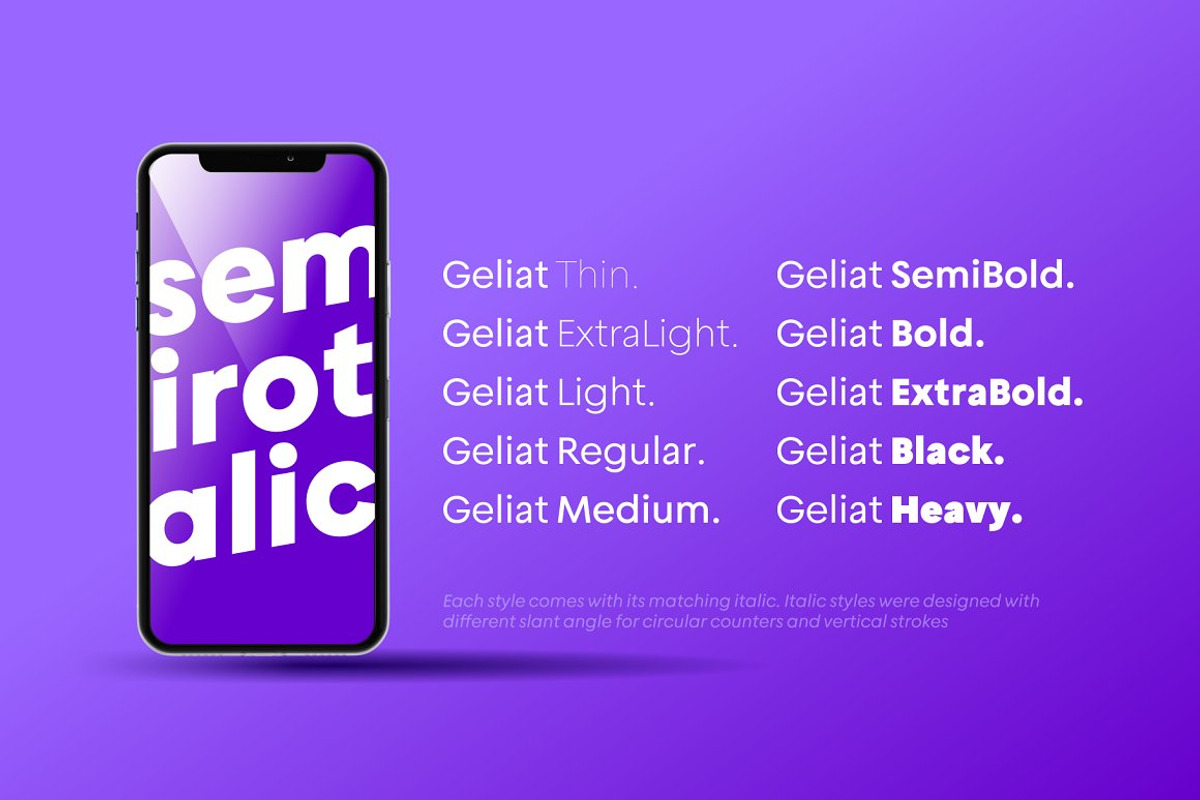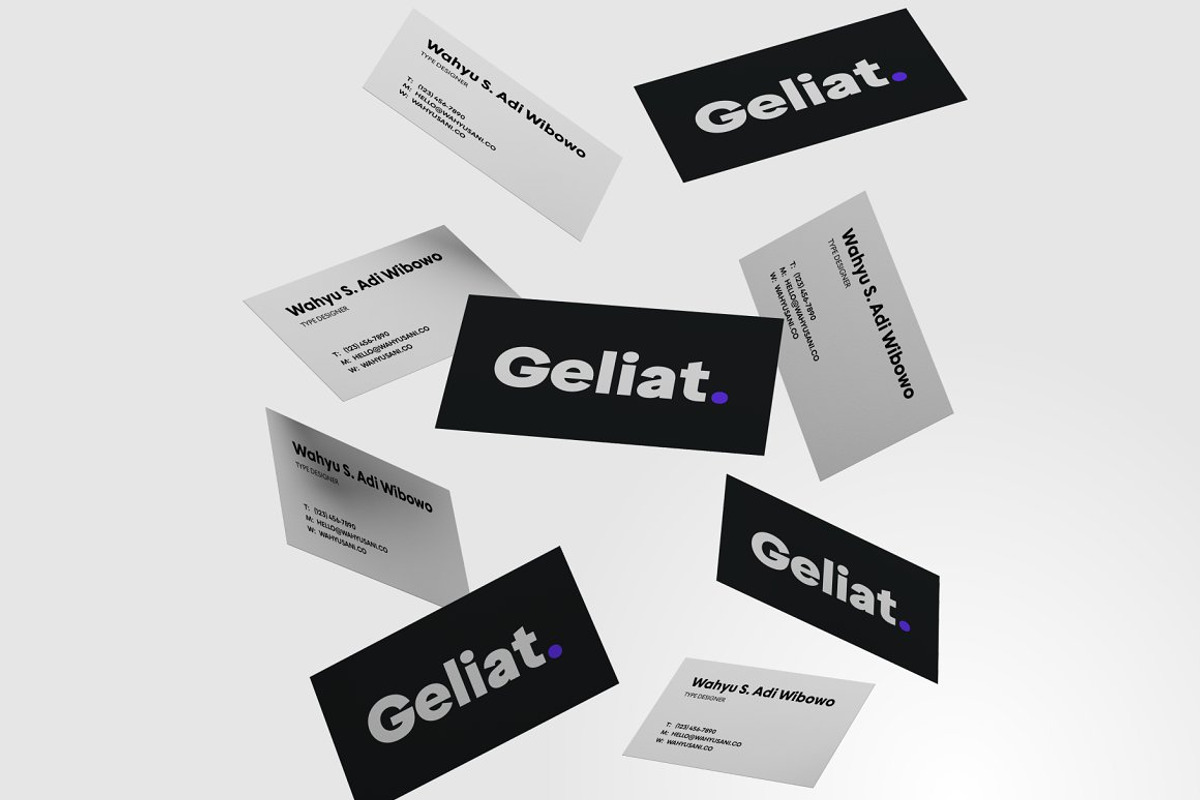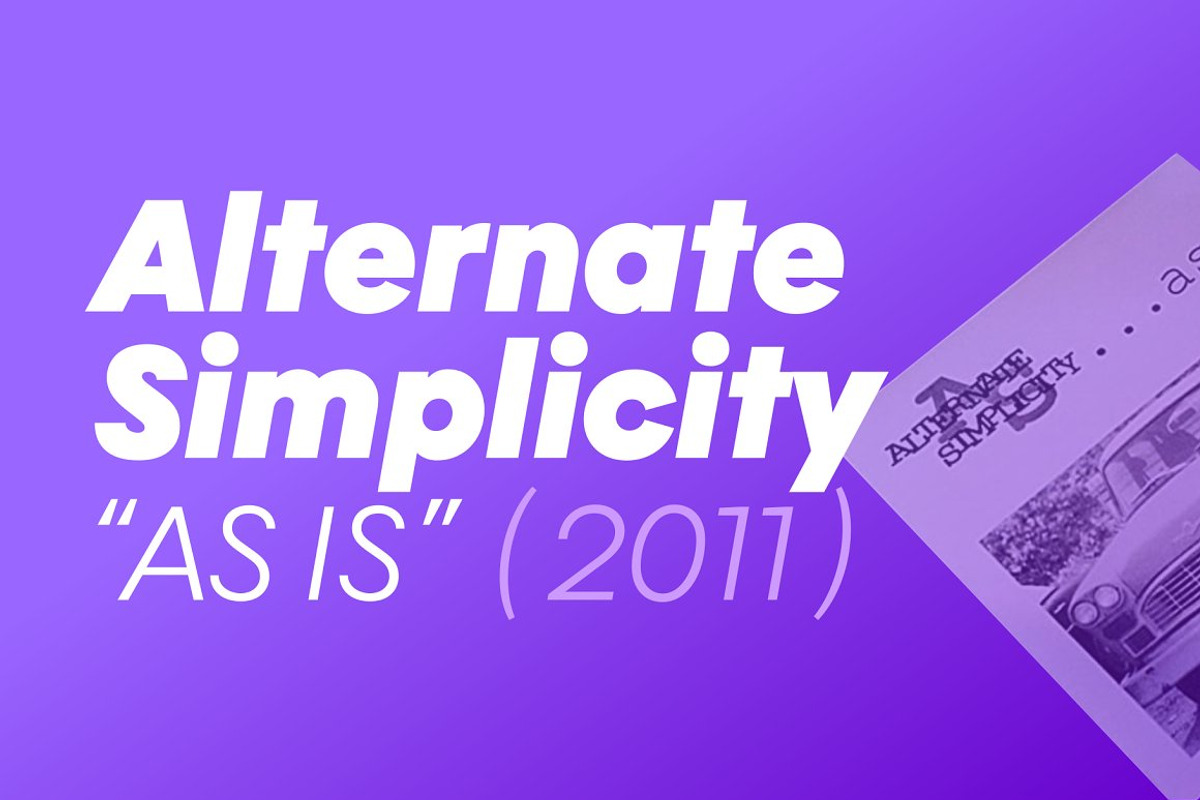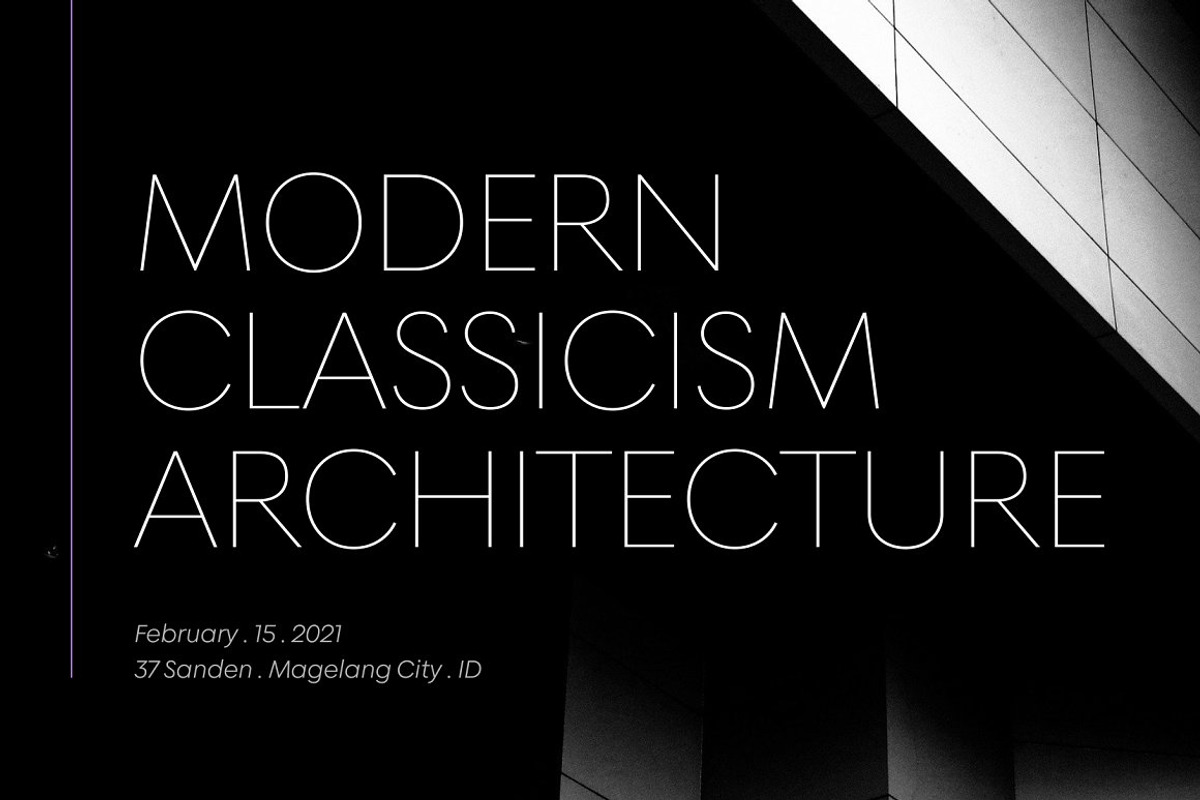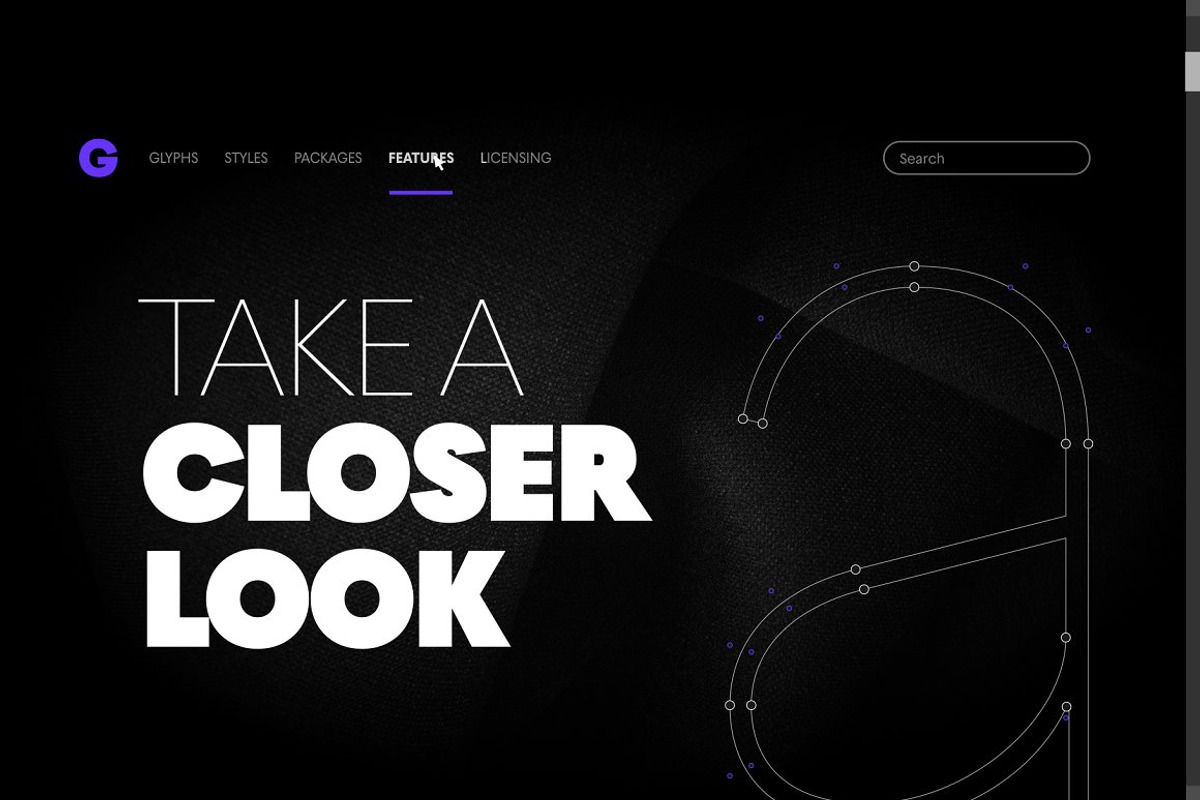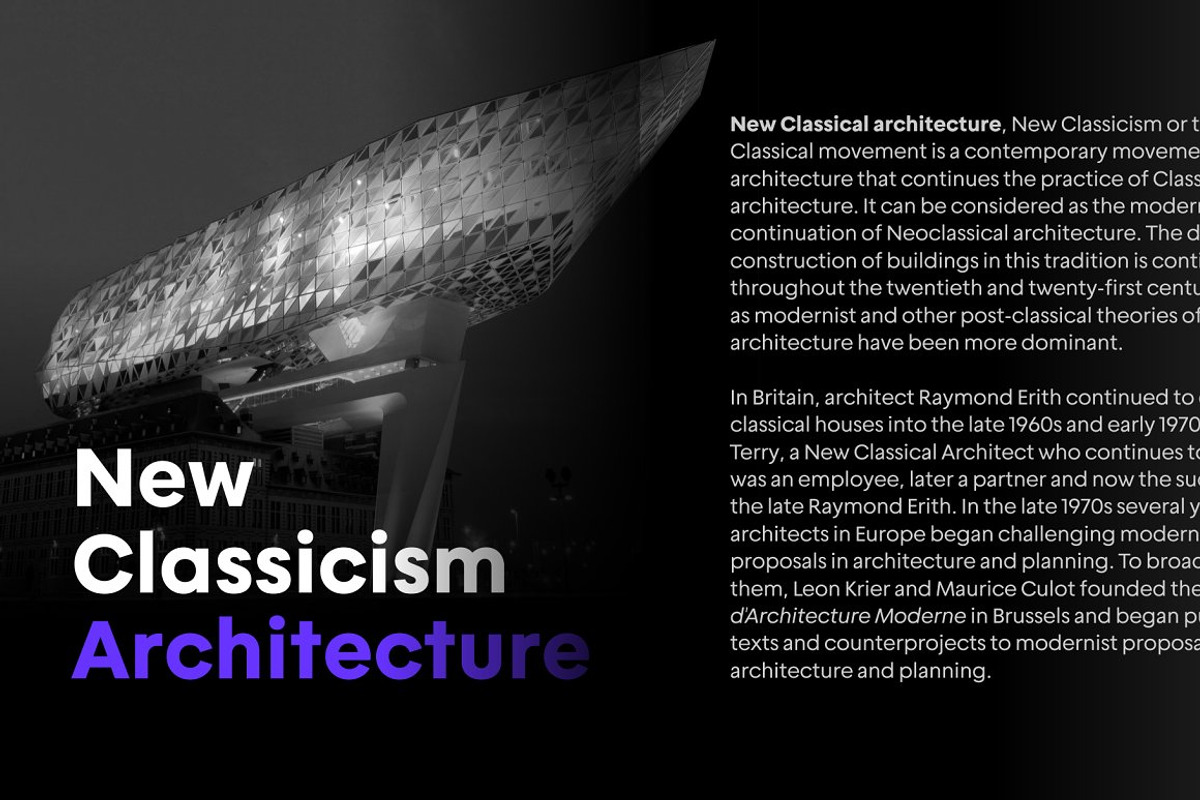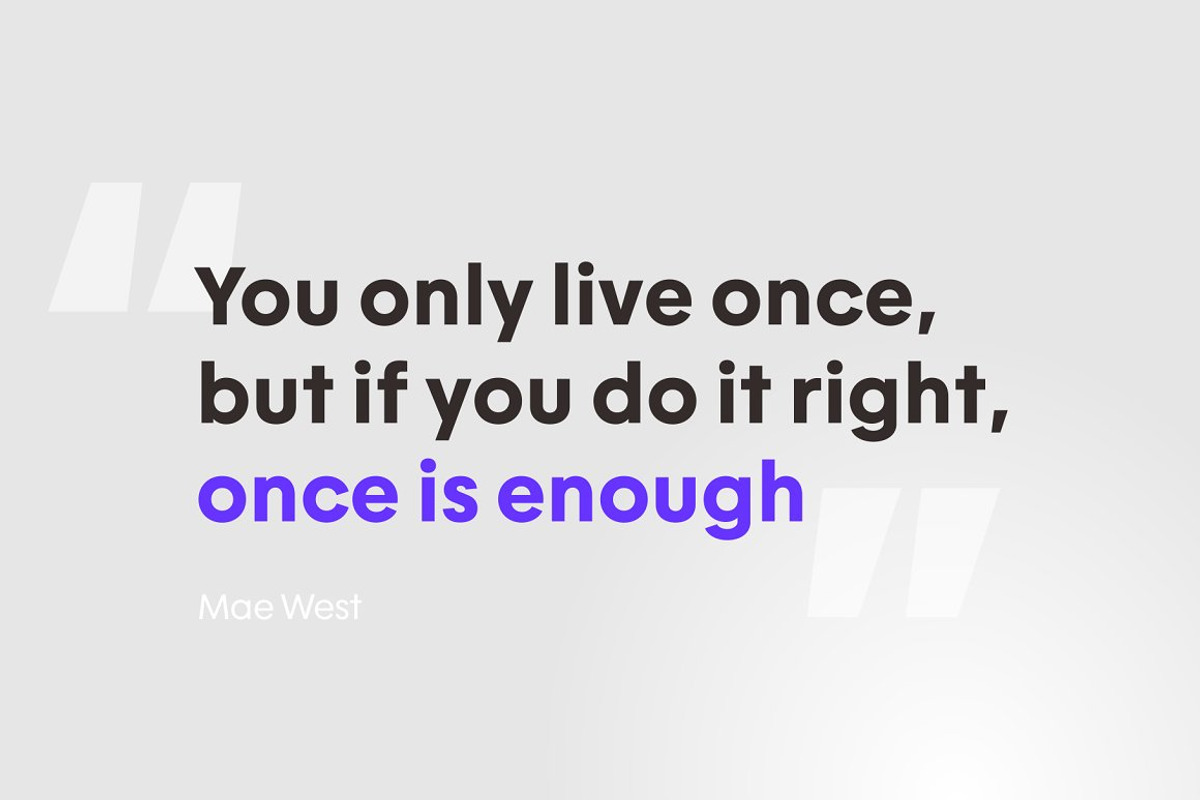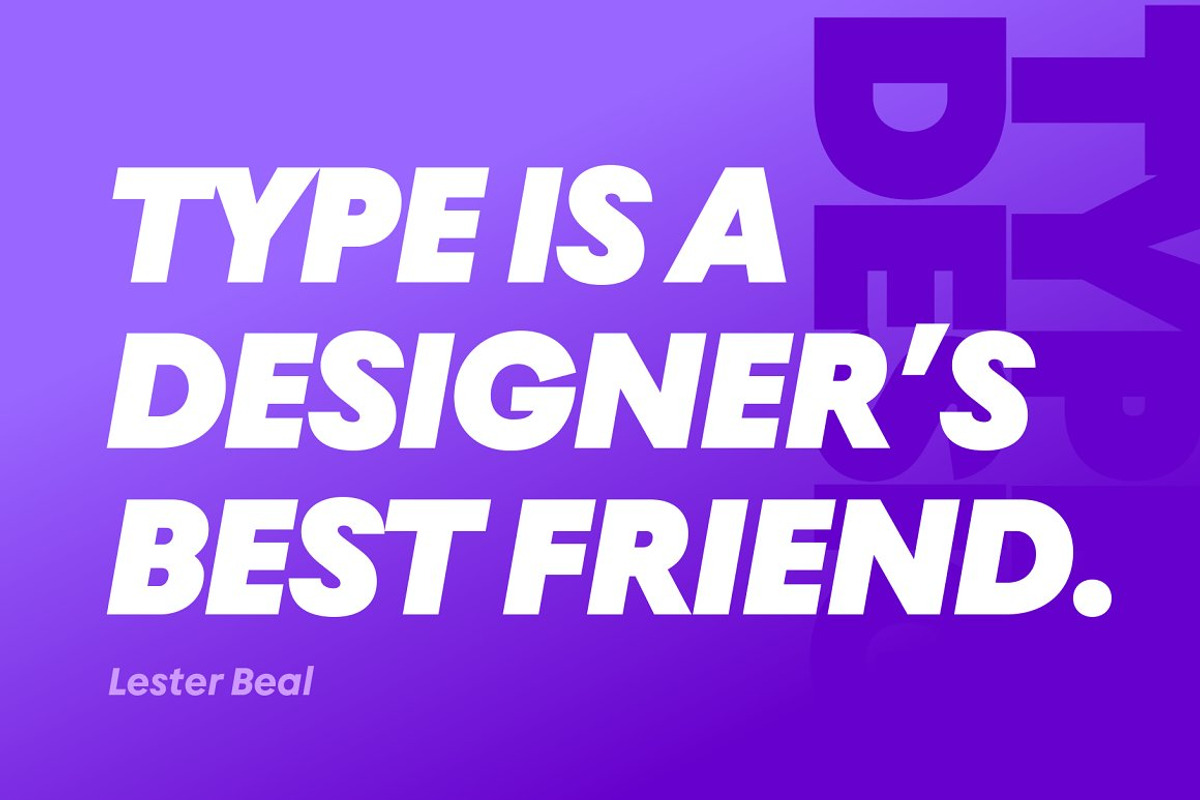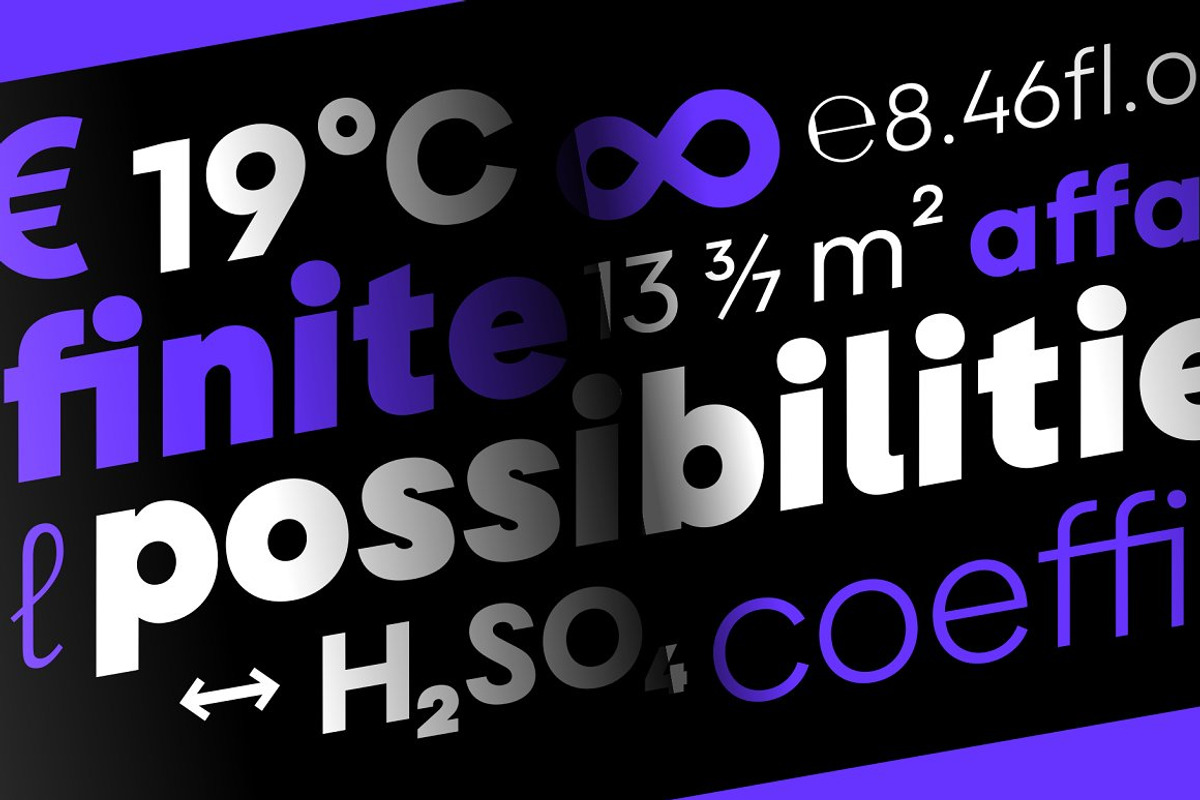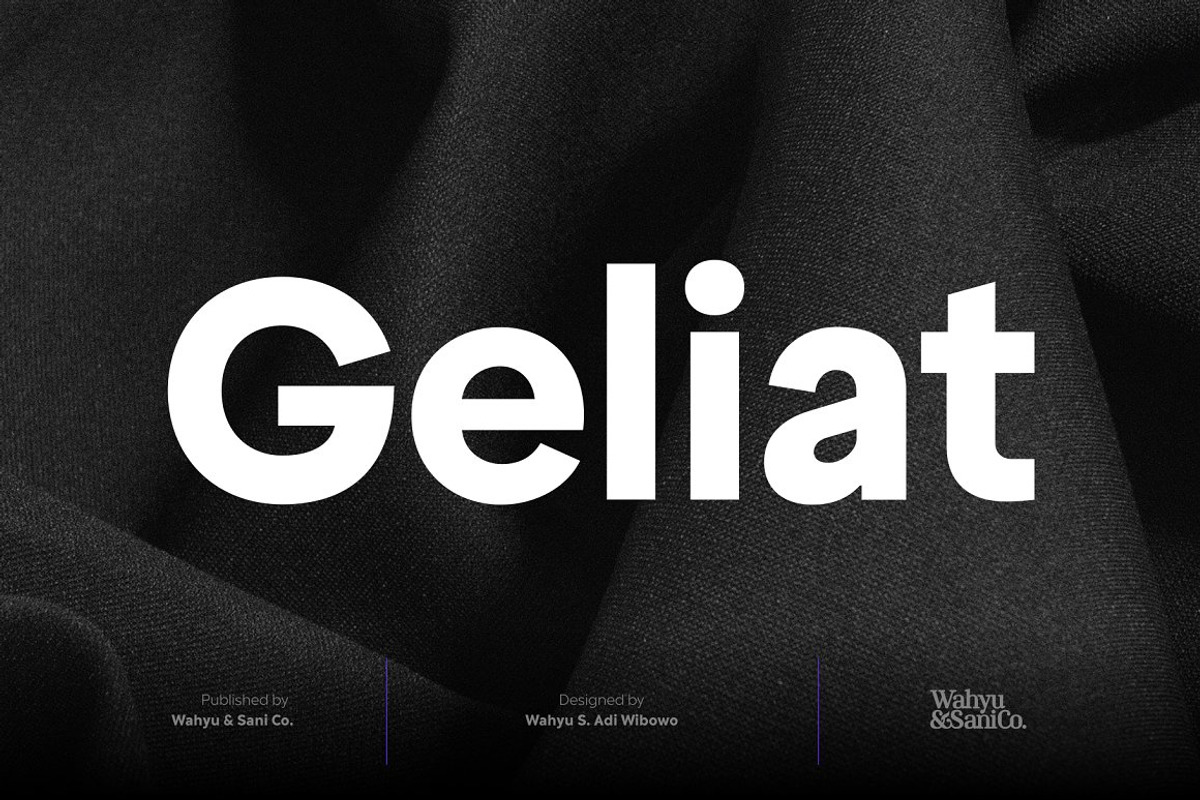
Geliat | Sans Serif Family
Geliat would be the youngest brother of Creo, retaining the letterform and proportion but has more geometric looks. This font family comes in two versions which has some different default glyphs. Geliat family has similar letterform with Creo, while the Alt version has common geometric letterform.
Italic styles of Geliat were designed using semi-rotalic method. The round parts have 5 degrees italic angle, while the vertical strokes were made in 10 italic degrees. The result gives the styles look more circular than most geometric typefaces with the same 10 degrees italic angle.
Each version of Geliat has 10 different predefined weights from Thin to Heavy with matching italics. Each family member of Geliat also equipped with useful OpenType features such as Ordinals, Superscripts, Scientific Inferiors, Stylistic Sets, Tabular Lining, Standard Ligatures, Fractions, Numerators & Denominators. Each font has 500+ glyphs which covers Western & Eastern Europe, and other Latin based languages.
Geliat will be suitable for many creative projects, from logos, posters, presentations, headlines, lettering, branding, quotes, titles, magazines, headings, web banners, mobile applications, art quotes, advertising, packaging design, book title, and more! Sky is the limit!